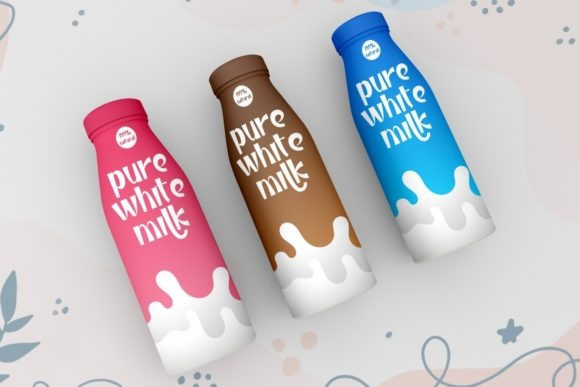
Tariksis Font
Tariksis is a playful and cool display font, that delivers stylish, fun and cute looks. The font will add an eye-catching appeal to many projects including fashion brands, kids project, crafting, invitation and many other design projects.